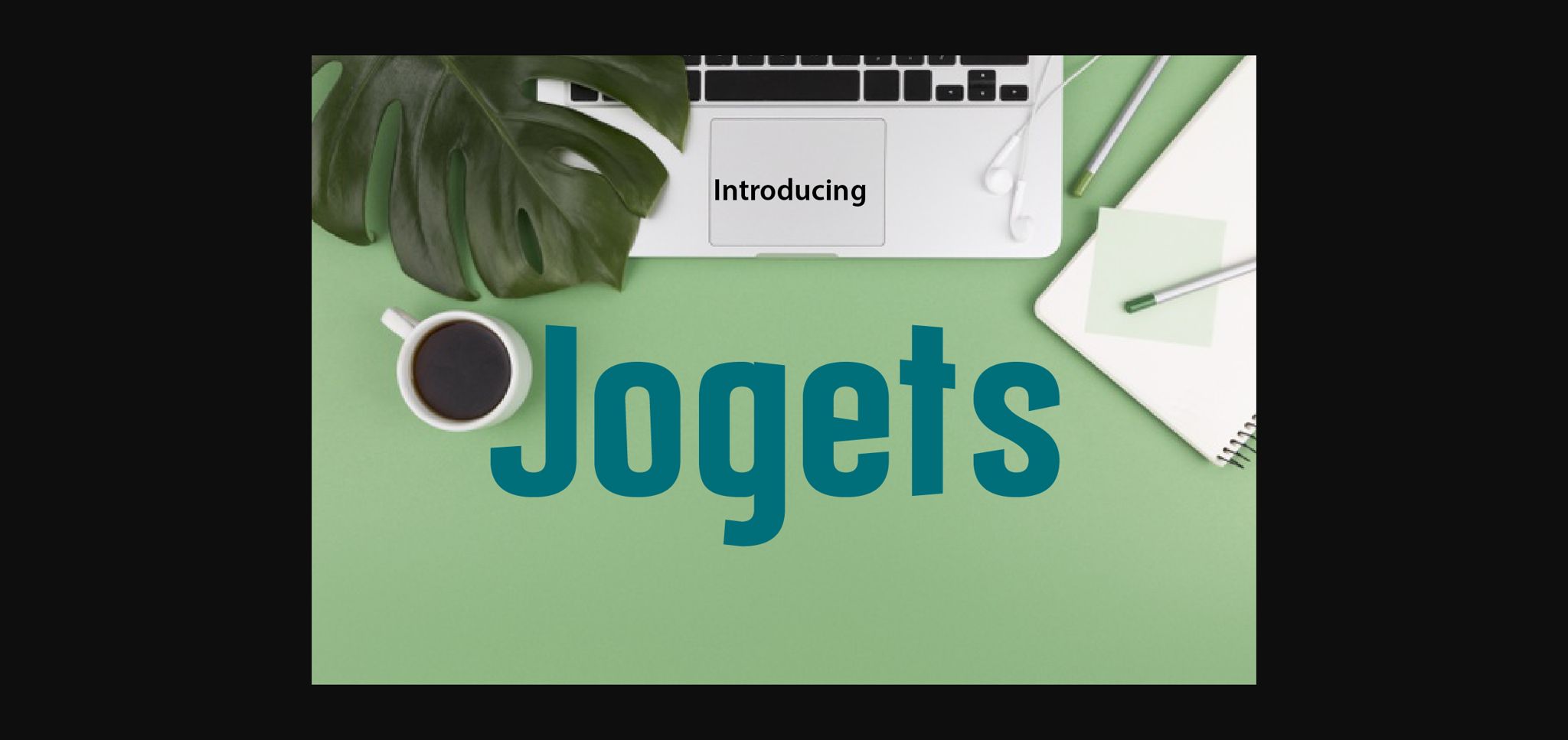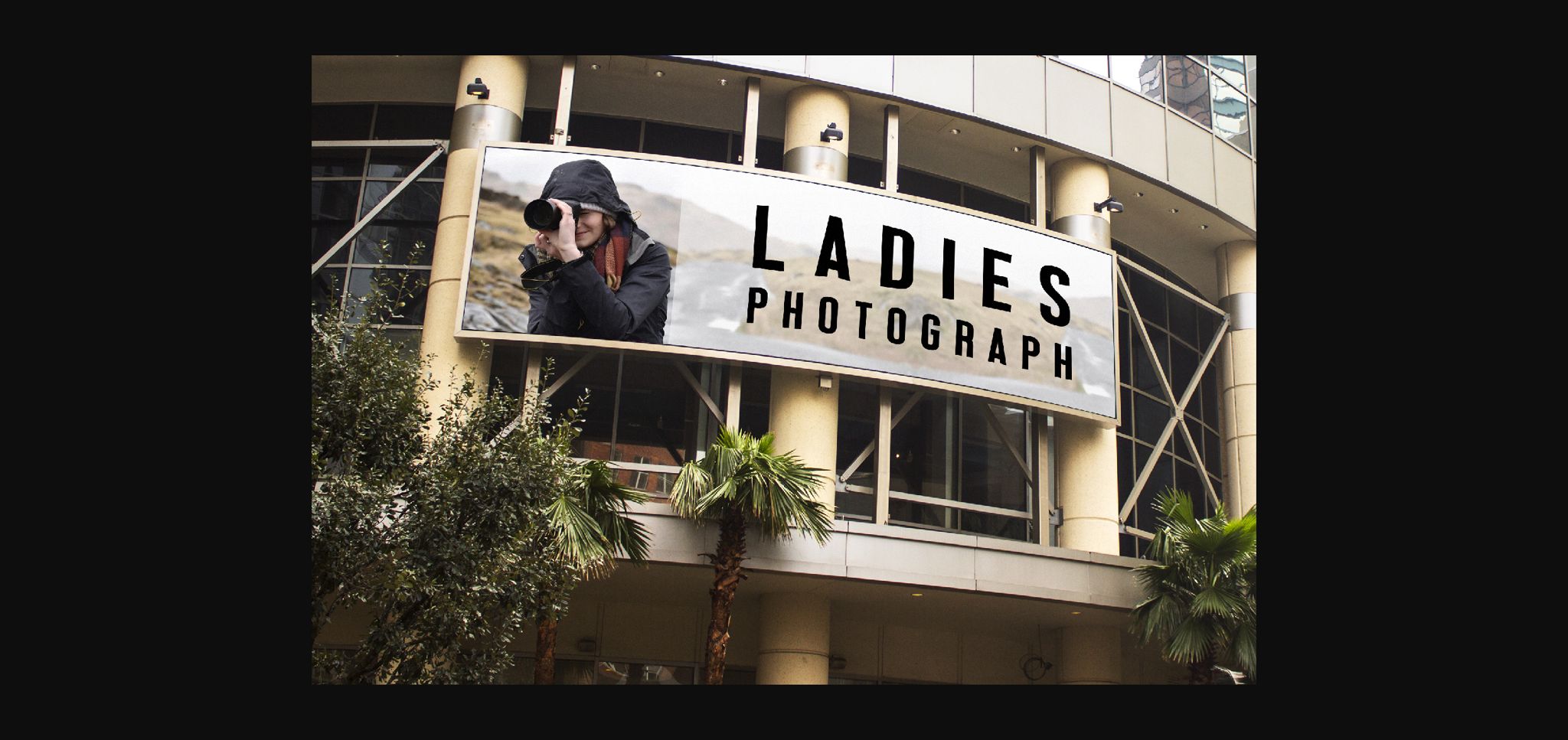
About Jogets Font
Jogets emerges as a bold sans-serif font, characterized by its fresh style and distinctive design elements. With varying heights in select corners, this chunky lettered font injects dynamism and vitality into your designs, breathing life into them with its unique aesthetic.
The standout feature of Jogets lies in its boldness and versatility. Whether you’re crafting eye-catching headlines, designing impactful logos, or developing engaging branding materials, this font’s bold demeanor commands attention and ensures that your message resonates with viewers.
What sets Jogets apart is its fresh style and innovative design. The varying heights in certain corners add a dynamic flair to the font, infusing your designs with a sense of energy and movement. Whether used sparingly for emphasis or integrated seamlessly throughout your composition, Jogets adds a touch of personality and creativity that captivates the imagination.
One of Jogets’ key strengths is its ability to bring your designs to life. Its chunky letterforms and bold presence make a bold statement, leaving a lasting impression on your audience. Whether employed for digital or print projects, Jogets ensures that your designs stand out from the crowd with its distinctive charm.
Moreover, Jogets’ versatility extends beyond aesthetics to practicality. Its well-defined characters and legible appearance ensure readability across various platforms and mediums, enhancing user engagement and facilitating seamless communication of your message.
Incorporating Jogets into your designs is sure to breathe new life into them, infusing them with vitality and personality. Whether you’re aiming for a playful vibe or a bold and impactful look, Jogets offers endless possibilities for creative expression.
In summary, Jogets is more than just a font; it’s a powerful design tool that empowers you to create visually stunning and engaging designs. With its bold sans-serif style, fresh aesthetic, and dynamic design elements, Jogets breathes life into your projects, making them come alive with energy and vitality.